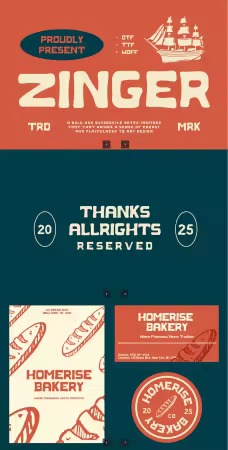
EE - Zinger - Retro Display Font RJ4TA7V
Zinger is a bold and expressive retro-inspired font that brings a sense of energy and playfulness to any design. With its sharp angles, distinctive curves, and vintage flair, Zinger captures the essence of mid-century typography, making it perfect for projects that require a touch of nostalgia and attitude.